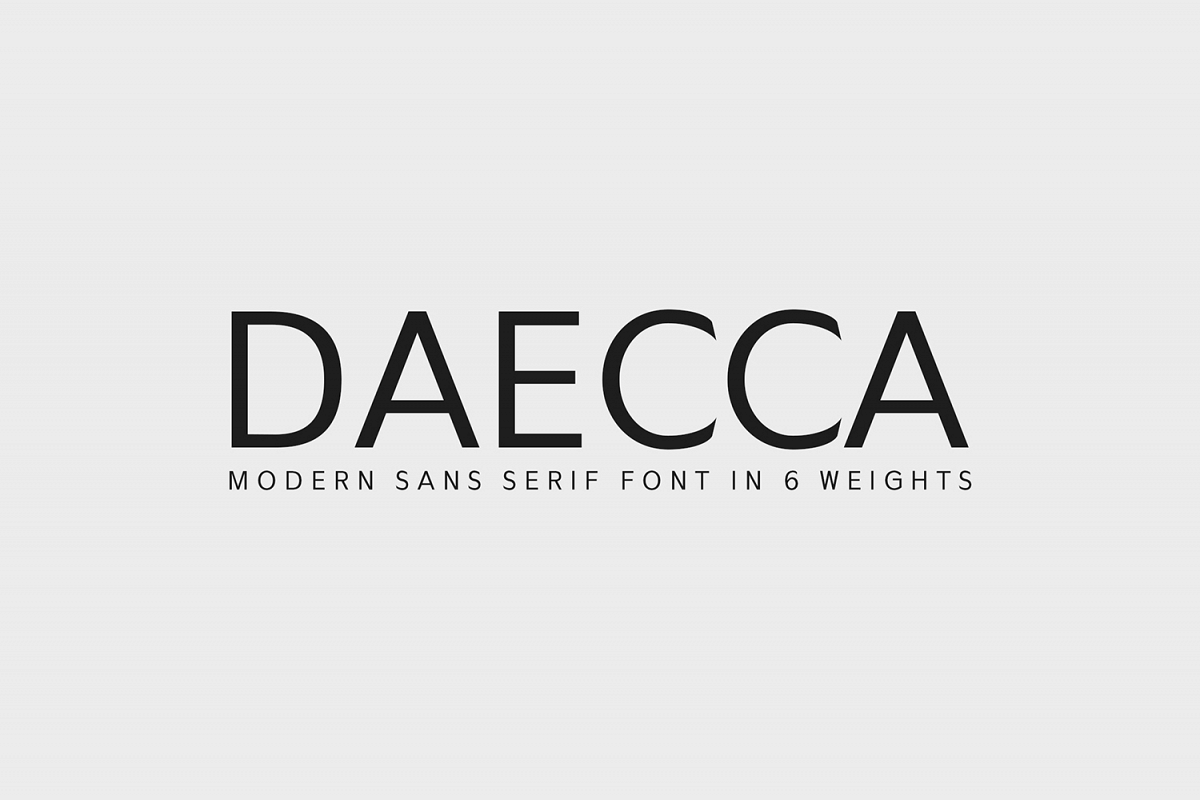
Daecca Sans Serif Font Family
Daecca is a modern and minimal rounded sans serif typeface. It comes with 4 weights: Regular, Round, Outline and Bold versions, which contains complete basic glyphs with multilingual support. Daecca will be perfect for packaging, presentations, logo, headlines, lettering, posters, branding, quotes, titles, magazines headings, web layouts, advertising, invitations, packaging design, books, and nearly any creative design.
Included Features:
• Font Weight: Regular, Round, Outline and Bold
Daecca Font Features:
• Uppercase Letters
• Lowercase Letters
• Non English Characters ( Latin Supplement + Latin Extended A)